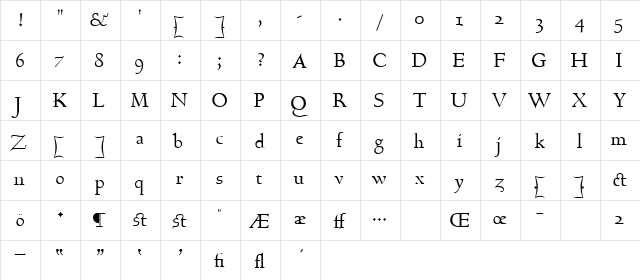
GoudyHundred Regular
Design Context for GoudyHundred Typeface
GoudyHundred takes a measured approach to typography — its balanced proportions and neutral character make it a reliable workhorse for both digital and print work.
Pro Tip: Use GoudyHundred in both headline and body roles to test its range before committing to a single application.